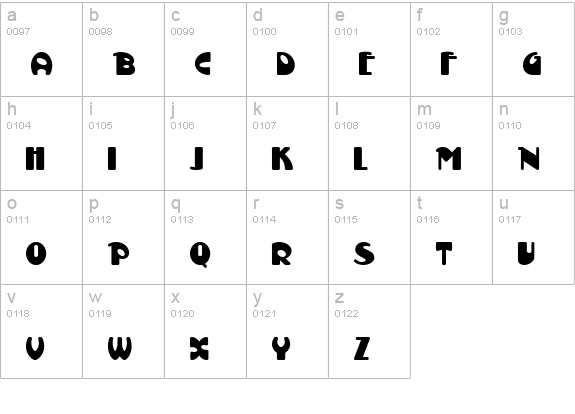
NovSchmozKapopNF Font Details
The NovSchmozKapopNF font is a whimsical and playful typeface that exudes creativity and charm. Its unique design features quirky and irregular letterforms that add a fun and quirky touch to any project. This font is perfect for adding a touch of personality to invitations, posters, logos, and more. What's even better is that this font is available for free download at FontsMarket.com. With just a few clicks, you can add this delightful font to your collection and start using it in your designs today. Don't miss out on the opportunity to enhance your creative projects with the NovSchmozKapopNF font - get it now for free!